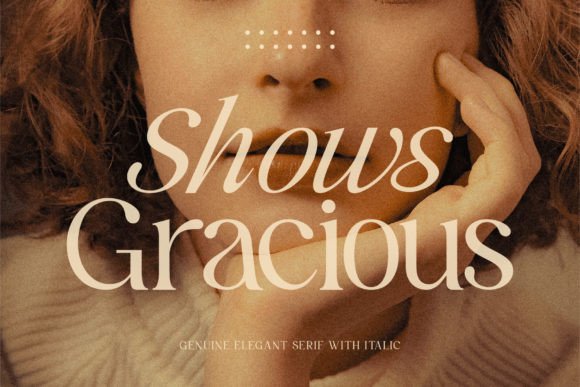
Meet Shows Gracious, the epitome of grace and sophistication in the world of serif fonts. This exquisite font, meticulously crafted by roomspace, captivates with its smooth curves, elegant strokes, and timeless allure. Step into a realm of endless creative possibilities as you unveil the beauty of Shows Gracious.
Immerse yourself in a world where words dance with elegance and charm. Shows Gracious is not just a font; it's an artistic expression that breathes life into your storytelling. Whether you're crafting heartfelt Instagram stories, designing captivating social media posts, or creating stunning invitations, Shows Gracious elevates your words, making them resonate with your audience.
With its versatile nature, Shows Gracious effortlessly adapts to a multitude of styles and themes. From vintage and classic designs to modern and minimalist aesthetics, this font seamlessly blends in, adding a touch of sophistication to every project. Its graceful presence commands attention without overpowering, ensuring your message shines through with clarity and impact.
Unleash your creativity and embark on a journey of self-expression with Shows Gracious. Let your imagination soar as you design captivating Instagram stories that captivate your followers. Craft social media posts that exude elegance and charm, leaving a lasting impression on your audience. Create invitations that radiate warmth and sophistication, making every occasion truly memorable.
Shows Gracious is more than just a font; it's an investment in your creative endeavors. With its versatility, grace, and timeless beauty, this font will accompany you on countless projects, adding a touch of magic to each one. Experience the transformative power of Shows Gracious and unlock the full potential of your storytelling.